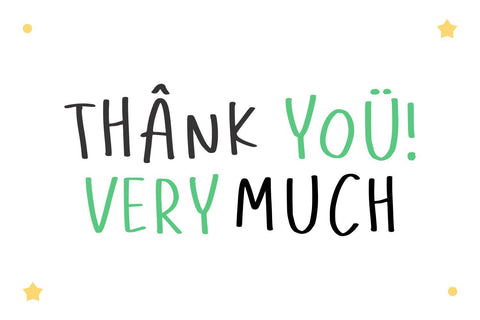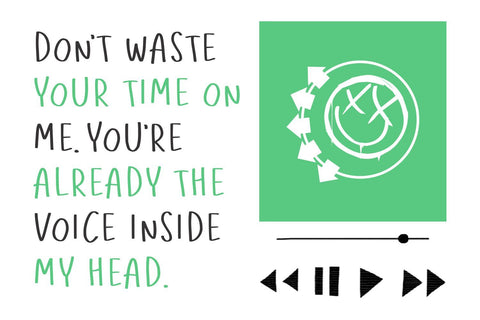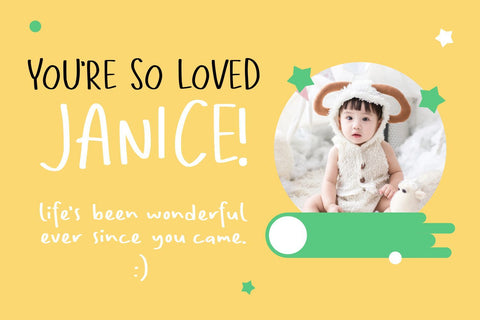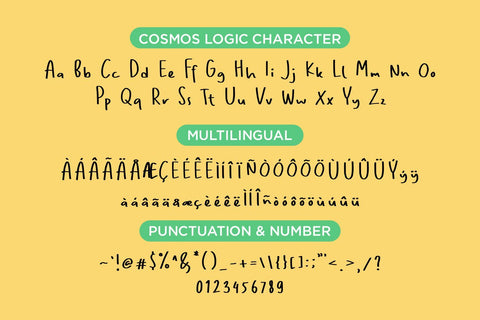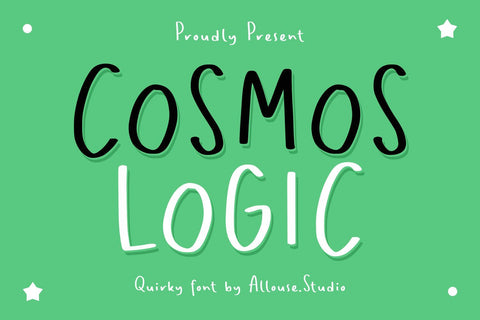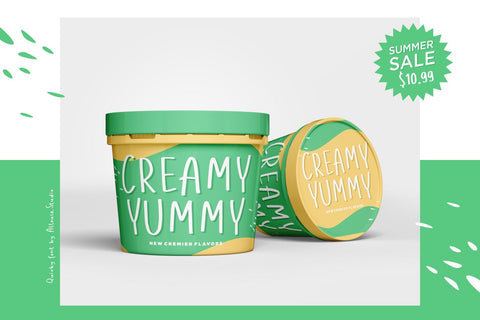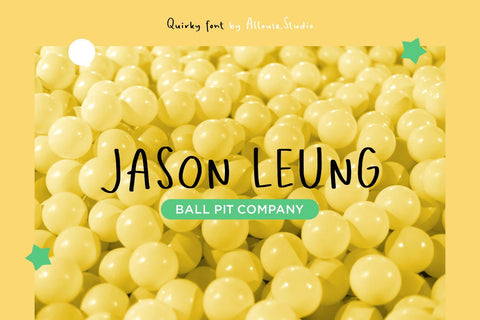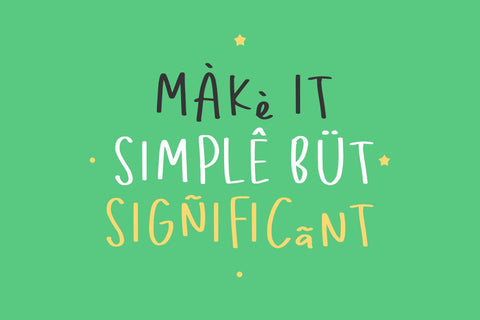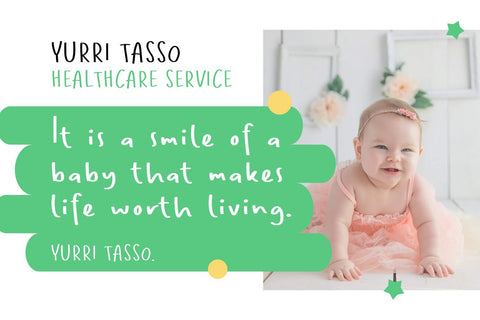
Cosmos Logic - Quirky Font
Cosmos Logic a Quirky Font which will give you mood impression..
Cosmos Logic come along with Multi-Lingual Support to fulfill your need.
Cosmos Logic is perfect for any tittle, lyrical video music, logo, product packaging, branding project, megazine, social media, wedding, or just used to express words above the background.